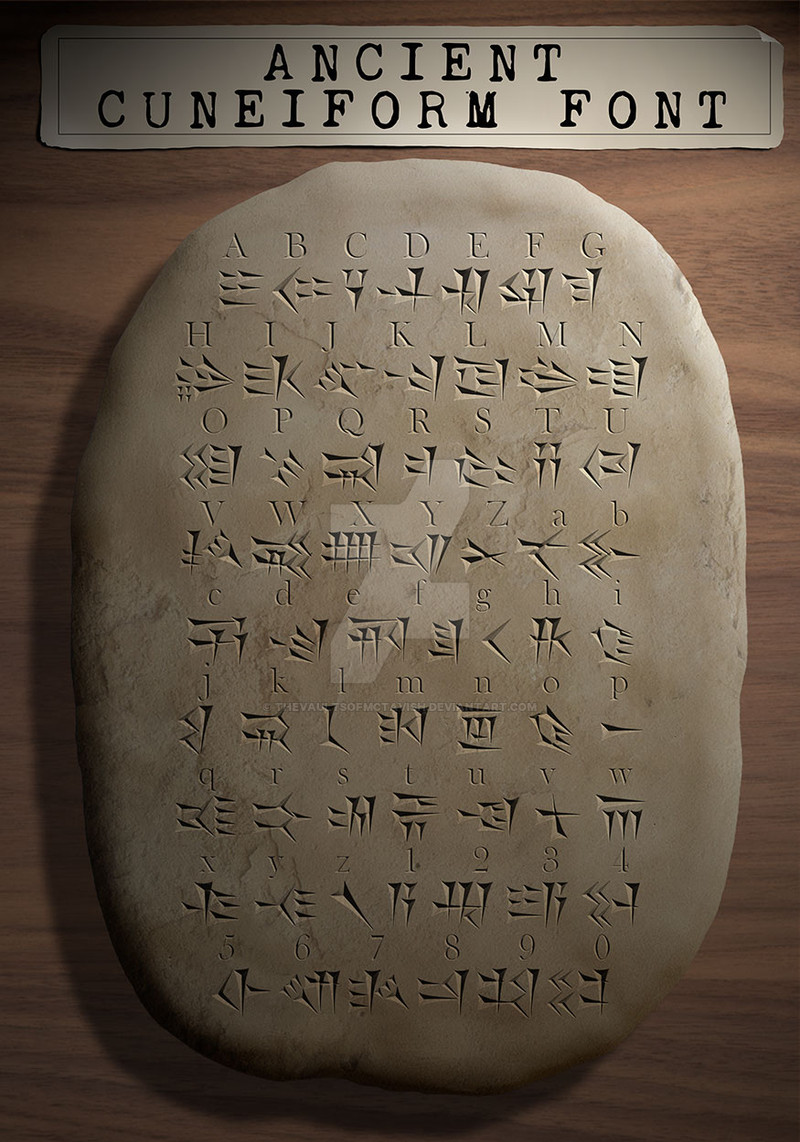
The ancient text appears on a number of curious tablets, discovered by Stapleton McTavish the famous explorer and collector of ancient occult artifacts, each one depicting disturbing carvings. They are believed to have been the inspiration for the Mad Arab Abdul Alhazred's monstrous Necronomicon.